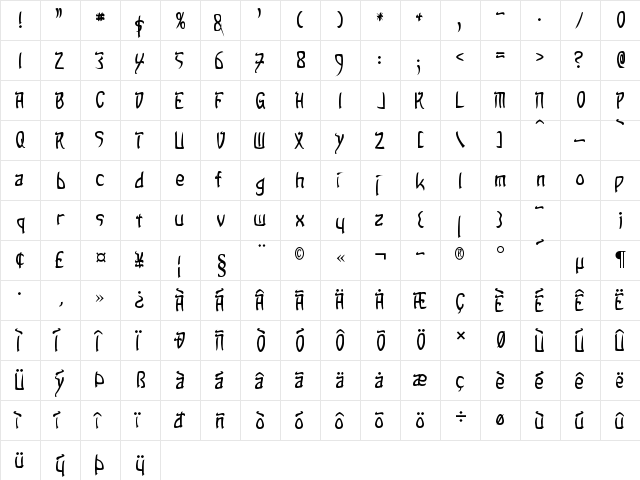
Taibaijan Regular
| Foundry | Pixel Sagas |
| Designer | Neale Davidson |
Design Context for Taibaijan Typeface
Taibaijan is a composed and adaptable typeface that performs quietly and consistently across a wide range of design contexts.